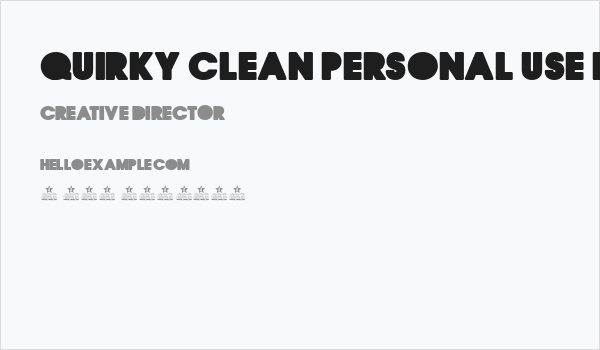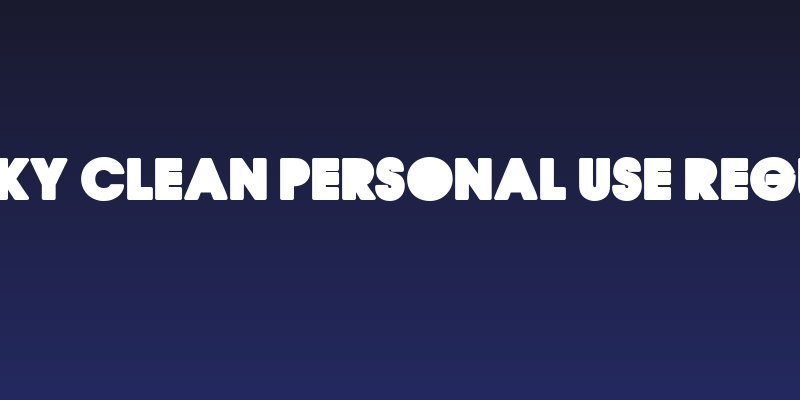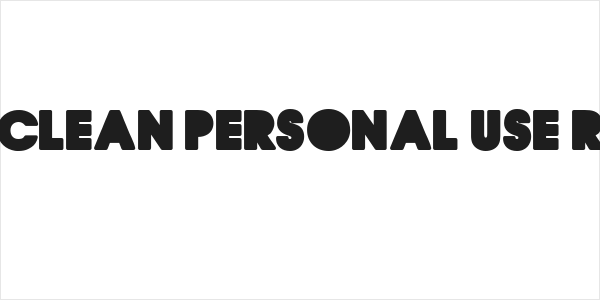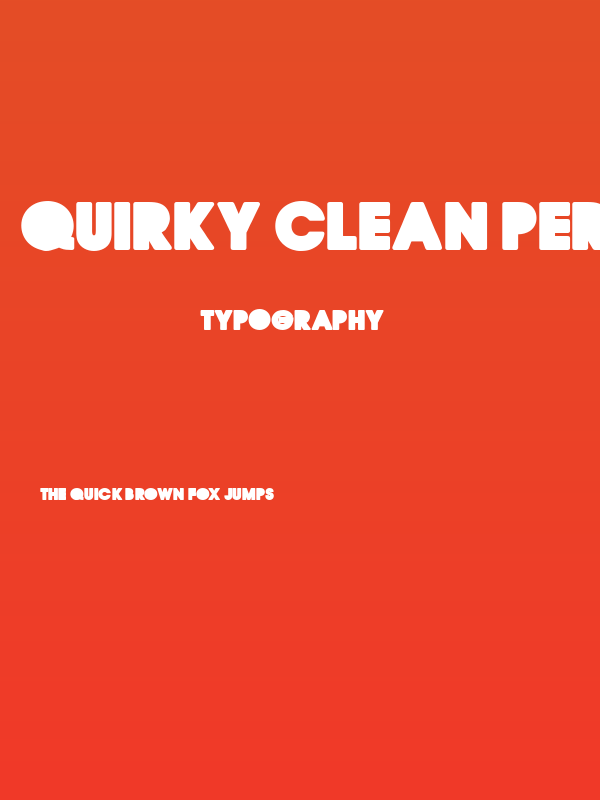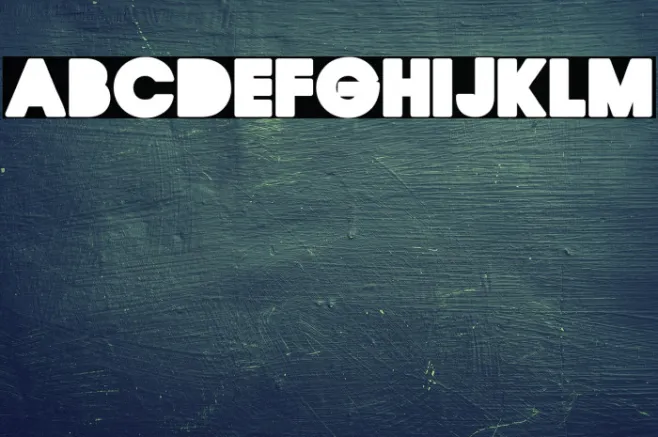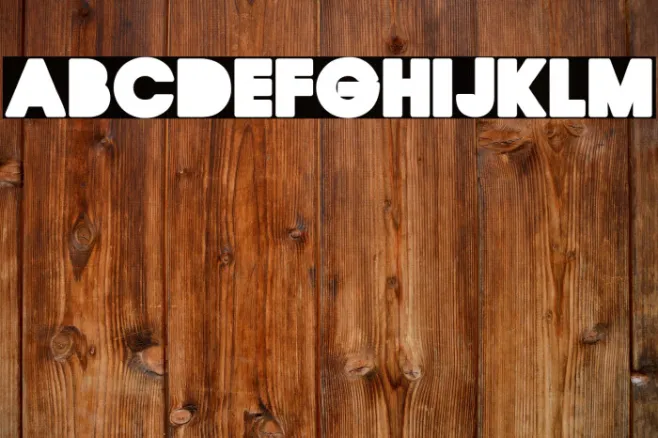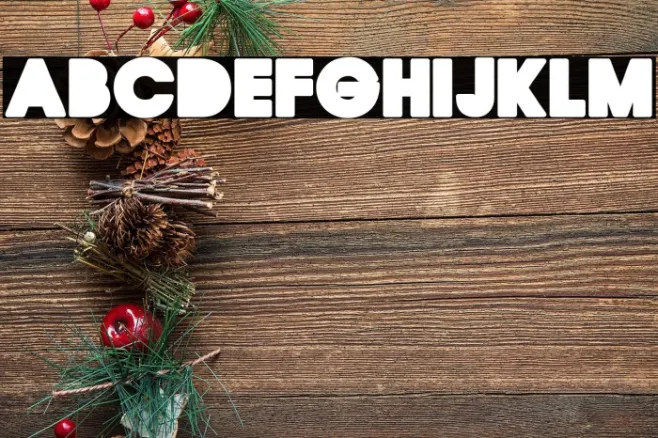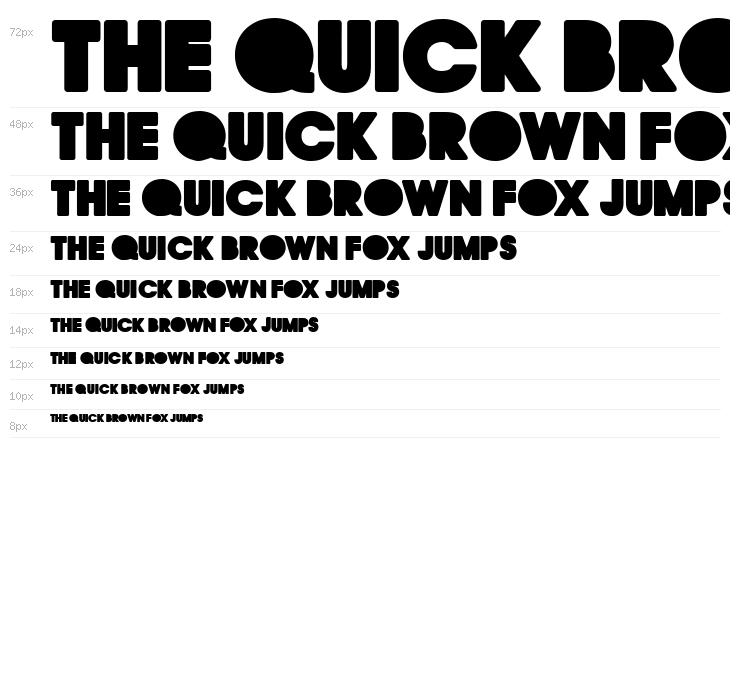
QUIRKY CLEAN PERSONAL USE Regular Font
QUIRKY CLEAN PERSONAL USE Regular Description
This font features bold, geometric letterforms with a playful and quirky style. The characters are constructed with thick strokes and rounded edges, giving them a friendly and approachable appearance. The uppercase letters are particularly striking, with some incorporating unique design elements, such as the circular cutout in the 'O'. The overall design is clean and modern, making it suitable for a variety of creative projects. The font's boldness ensures high visibility, making it ideal for attention-grabbing headlines or logos.